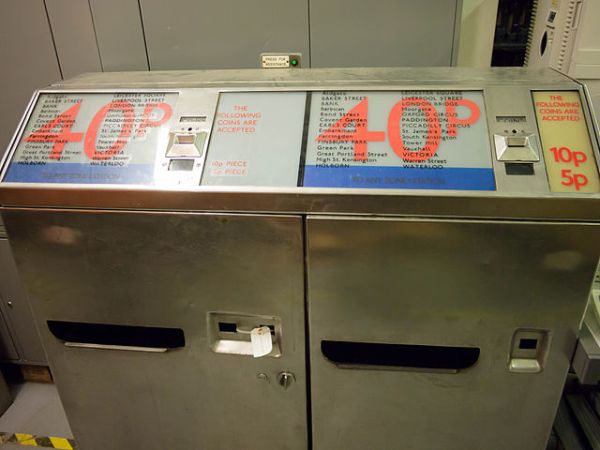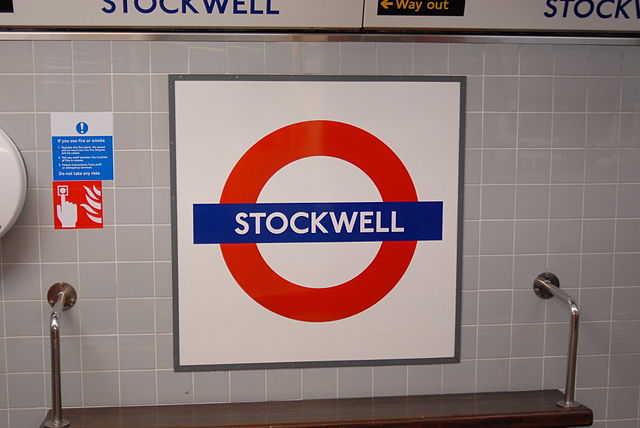
Travels with my Father (Johnston typeface, Edward Johnston)
It’s my New Year’s resolution to get round to writing all the entries that I meant to when I started this blog, so this week I’m looking at the granddaddy of all the famous transport fonts, whose descendants are still going strong today: Johnston.
When I was young, my father would take me on all sorts of transport related trips at the weekend. He was good like that; although working long into the weekday evenings he would always find time to do something with his children at the weekend (he was/is a doctor, and I don’t suppose there’s ever been a time when the UK’s National Health Service has functioned without its employees working well beyond their contracted hours).
Many of our early trips were to London. We would arrive at St Pancras (gloomy, dirty and staggeringly atmospheric in those days, rather than the polished and glittering spectacle it is now). He took me right round the London Underground’s Circle Line. He took me on the Piccadilly Line to Heathrow Airport, where we stood on the viewing gallery above one of the terminals and watched the queue of planes coming in to land, a string of landing lights stretching far into the distant sky. Before terrorists started crashing planes into buildings, you could do that. It was a kinder, slightly less grumpy, transport world back then.
But above all, I can vividly remember being impressed by, of all things, London Underground’s typeface. At that age, I didn’t know what it was, and I had no grasp of what typefaces actually were. I’d only just mastered reading, let alone worrying about what typeface I was doing that reading in. But I was amazed by the shape and style of the numbers on London Underground ticket machines like these:
There was just something wonderful about them. I fell in love with them and what I later learned was Modernism at that moment. And when I saw one of these on one of our trips:
…I was hooked forever. I doodled the UNDERGROUND sign, complete with dashes above and below the letters, and then I started copying out bits of Modernist graphic work and building details like windows and sunburst clocks; mostly, to be honest, in or on school exercise books to the likely bemusement of my teachers.
And what had been the cause of all this? Edward Johnston’s eponymous transport typeface.
Johnston (the man, not the typeface) is the third person in the triumvirate that defined the look of London’s Underground – and, by extension, London itself – in the early 20th Century. Frank Pick was the chief executive who understood that his transport empire in London not only needed to work well, but needed to look good. Charles Holden was his favourite architect, who would go on to design many of London Transport’s classic Modernist buildings. Edward Johnston made sure that London Transport’s visual identity was consistent throughout, thanks to the clarity and immense style of his Johnston typeface. It appeared on the sides of vehicles, on way-finding signs at stations, and on the many posters which advertised Pick’s transport network, which eventually became London Transport in 1933, where Johnston was retained as the corporate typeface.
Johnston is extraordinarily attractive, a razor-sharp geometric wonder with all the hard drama and seductiveness of a diamond. It is authoritative and very easy to read, a world away from what was the most (in)famous transport typeface until the introduction of Johnston, Guimard’s sinuously befuddling typeface for the Metro in Paris. Johnston is a sans-serif font, without the little ticks at the end of letter strokes that make text written on a page flow, but which can distract the eye on signage. It draws on Caslon for inspiration (Ovenden, 2013: p122), but has quirks and a character all its own.
The middle strokes on a Johnston “W” used to cross over in a little ‘x’ shape in an idiosyncratic and rather charming manner, although that was dropped as the typeface was standardised. The lower case ‘l’ has a lovely curve at the bottom, but perhaps most famously, the dots on the lower case ‘i’ and ‘j’ are diamonds. Much of the typeface is based on perfect squares (‘M’ and ‘E’ for instance) or circles (‘O’ and ‘Q’). The counters (open spaces within the circles) of letters like ‘o’ are twice the width of the line which forms the letter.
Roundel at Aldwych station with crossed W. Photo by Clare Griffiths [CC BY 2.0] via this flickr page
Roundel at Aldwych station with crossed W. Photo by Clare Griffiths [CC BY-NC-ND 2.0] via this flickr page
As befits a masterpiece, Johnston took his time designing his new typeface. Initial discussions between Pick and Johnston on the new Underground typeface took place in 1913, but it was 1915 before Johnston completed his first set of letters. The rest came in 1916, at which point it was possible for the Underground’s printers to run up a set of proper wooden printing blocks of the new typeface, Johnston.
Johnston was a traditionalist, wont to use a quill when designing, and many regard him as the last of the great calligraphist-designers rather than a typeface designer in the modern sense. Johnston, on the other hand, has been described as the first great modern font. That’s how important it is, and it was brought to the world courtesy of public transport in general, and Pick’s forward-looking vision of it in particular. You’re welcome, world.